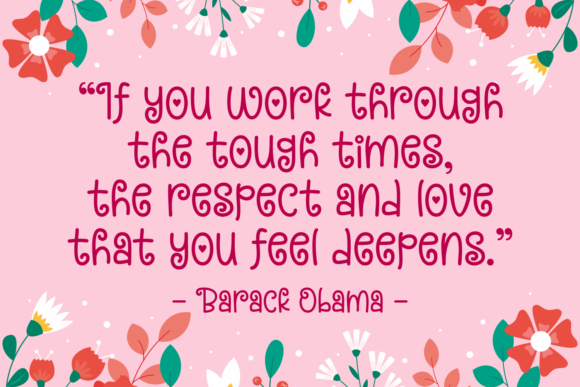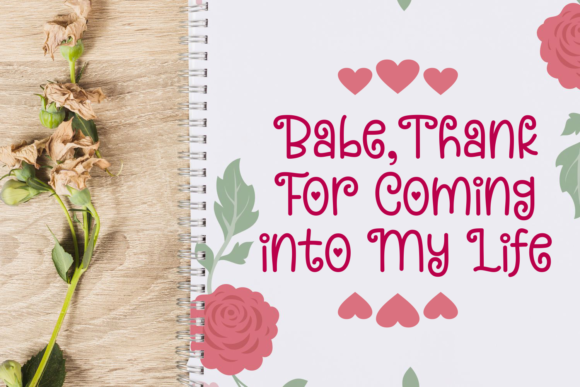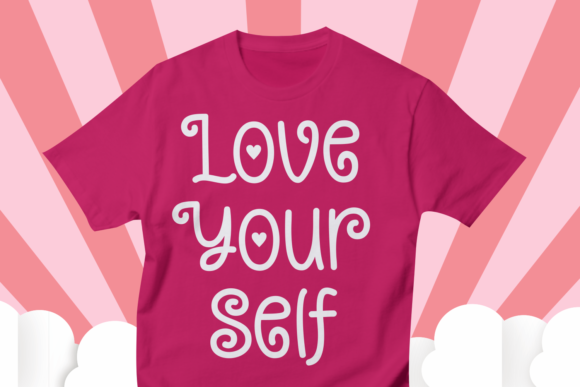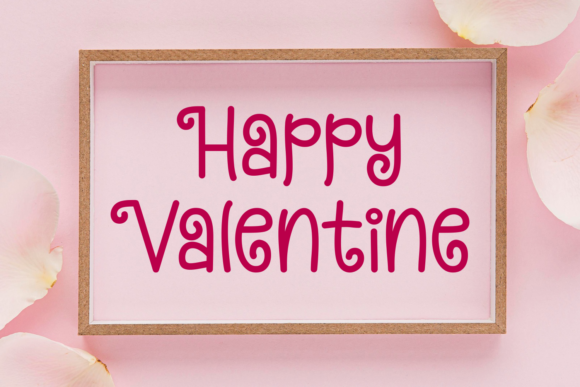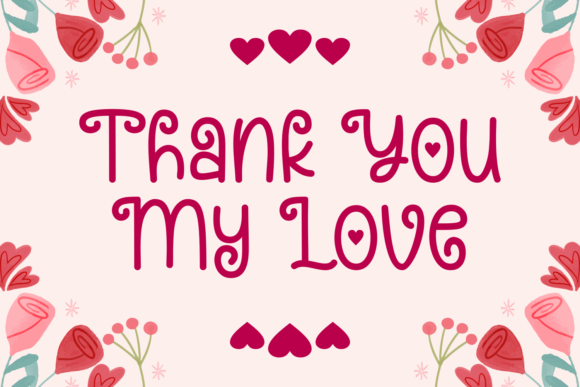
Introduction to Curly Lovantine Font
Do you remember the thrill of creating your first design project? The rush of excitement as you bring your idea to life? For designers, that feeling never gets old, and with the right tools, it can be even more magical. One such tool is the Curly Lovantine Font, a delicate, charming, and flowing display font that’s about to become your new best friend.
Imagine adding a touch of elegance to your next creative project with a font that’s both classy and contemporary. The Curly Lovantine Font is a high-quality design resource that’s perfect for designers looking to elevate their work. With its transparent background and flowing curves, it’s a free download that’s sure to impress. Whether you’re working on a personal project or a client’s design, this font is a valuable addition to your toolkit.
So, what are you waiting for? Dive into the world of Curly Lovantine Font and discover a whole new level of creativity. With its fresh and modern feel, it’s the perfect way to take your designs to the next level.
Key Features of Curly Lovantine Font
- The Curly Lovantine Font is a high-quality design resource perfect for creative projects, offering a unique and playful touch.
- The font’s unique characteristics include its curly and ornate design elements, making it ideal for projects that require a whimsical and creative touch.
Honest Review: Curly Lovantine Font
As a designer, I’m always on the lookout for high-quality design resources that can elevate my creative projects. Recently, I stumbled upon the Curly Lovantine Font, and I’m excited to share my honest review with you.
- ✨ The font’s unique, playful design makes it perfect for adding a touch of whimsy to your projects.
- ✨ The high-quality design ensures that the font looks great on a transparent background, allowing you to add a pop of color and texture to your designs.
- ⚠️ The font is only available in a single weight, which may limit its versatility in certain design projects.
- ⚠️ Some of the characters may not be as legible as others, especially at smaller font sizes.
Overall, I’m impressed with the Curly Lovantine Font’s unique design and high-quality construction. While it may not be perfect, it’s an excellent choice for designers looking to add a touch of personality to their creative projects. If you’re looking for a free design resource that’s both fun and functional, the Curly Lovantine Font is definitely worth checking out.
How to Use Curly Lovantine Font
The Curly Lovantine Font is a high-quality design resource that offers a unique, whimsical touch to any creative project. With its transparent background and elegant curves, it’s perfect for designers looking to add a touch of sophistication to their work.
Tips for Getting the Most Out of it
To get the most out of the Curly Lovantine Font, try using it in combination with other design elements, such as bold typography or bright colors. Experiment with different font sizes and styles to add visual interest to your designs.
The Curly Lovantine Font is perfect for a variety of creative projects, including:
- Baby shower and birthday party decorations
- Marketing materials and branding